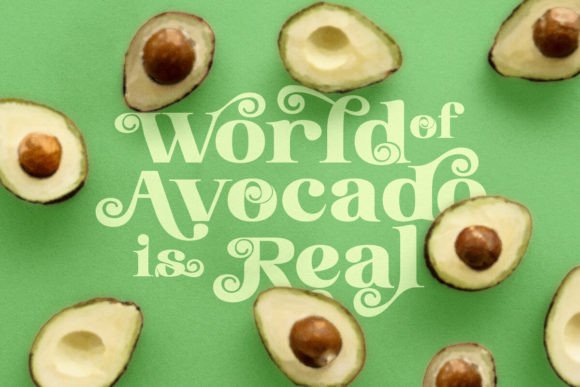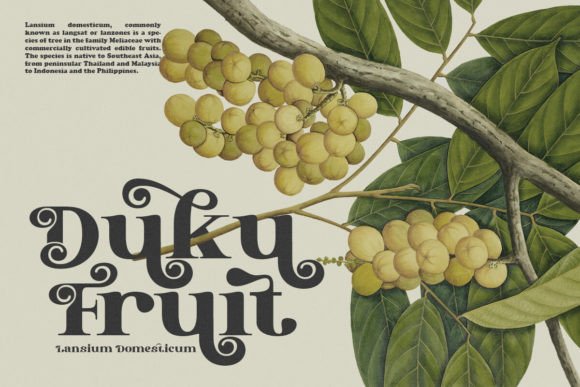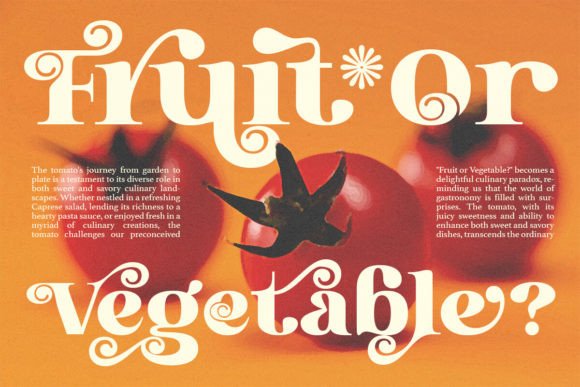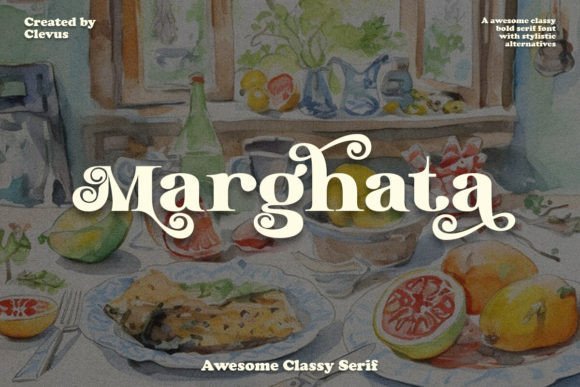
Introduction to Marghata Font
Proudly present Marghata Awesome Classy serif.
Marghata Font is a stylish font it has both a classy and retro look Comes with alternatives and ligatures, and helps to create stunning logos, quotes, posts, blog posts, branding projects, magazine imagery, wedding invitations, and much more.
Marghata Font offers exceptional quality and versatility, making it a valuable addition to your design toolkit. Whether you’re creating for personal projects or commercial use, Marghata Font delivers professional results.